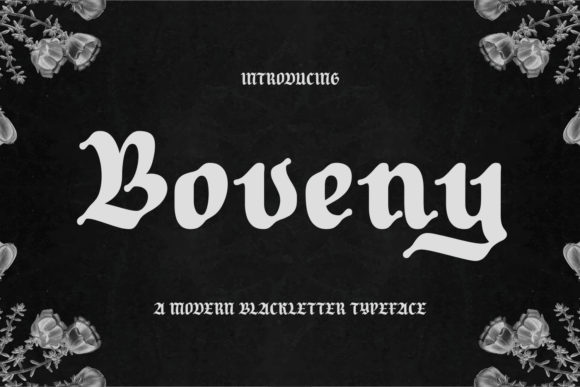
I still remember the frustration of working on a project, hours pouring over design concepts, and then getting stuck on one thing: the font. My client wanted something bold, elegant, and timeless, but I just couldn’t seem to find the right fit. That was until I stumbled upon Boveny Font – a stunning modern blackletter typeface that has since become a staple in my design toolkit.
First Impressions: What I Love About Boveny
So, what makes Boveny so special? Here are a few things that caught my attention:
• ✨ Unique blend of traditional and modern elements: Boveny seamlessly merges the traditional gothic flair of old-world calligraphy with a sleek contemporary twist.
• ✅ Bold, angular strokes and dramatic curves: This typeface has a commanding presence, making it perfect for creating impactful logos, eye-catching posters, and elegant packaging.
• 💡 Timeless sophistication and bold artistry: Boveny’s vintage charm, paired with its modern execution, allows it to convey a sense of elegance and creativity.
The Not-So-Perfect: A Few Quirks and Limitations
While Boveny is an amazing font, it’s not without its limitations. Here are a few things to keep in mind:
• 🤔 Limited legibility at small sizes: Like many blackletter fonts, Boveny can be challenging to read at smaller sizes. Make sure to use it at larger sizes or for display purposes only.
• ⚠️ Some glyphs may require manual adjustment: Depending on your design software, you may need to manually adjust certain glyphs to get the best results.
The Story Behind Boveny: Designer Inspiration
While the true story behind Boveny remains a mystery, it’s easy to imagine a designer inspired by the intricate details of old-world calligraphy and the clean lines of modern typography. Perhaps our designer spent hours poring over ancient manuscripts and typography books, seeking to create a font that would blend the best of both worlds.
Q: What type of projects is Boveny best suited for?
A: Boveny is perfect for projects where you want to make a bold statement, such as logos, posters, packaging, and editorial layouts.
Q: Can I use Boveny for body text?
A: While Boveny is stunning as a display font, it’s not recommended for body text due to its bold, blackletter style.
Q: Is Boveny suitable for digital use?
A: Yes, Boveny is optimized for digital use and can be used in a variety of digital applications, from social media graphics to website headers.